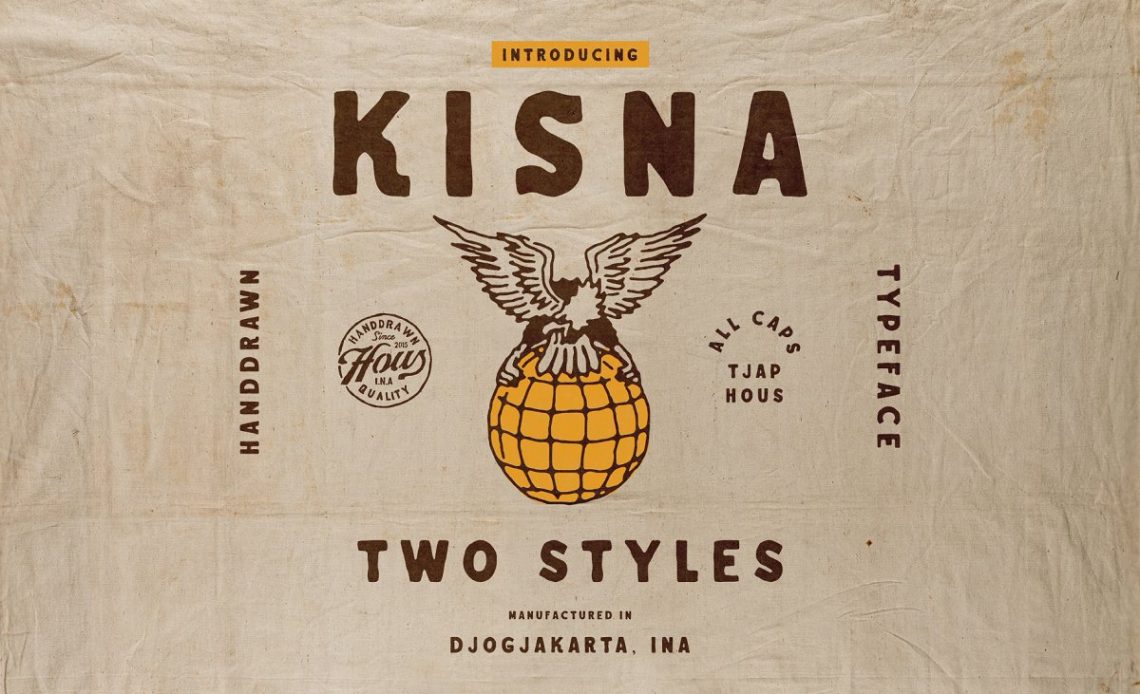
Introducing the Kisna Typeface, the Best Font for Vintage T Shirts! Created by Fahrenno Asnawan and inspired by the captivating graphics of the 1920s, this hand-drawn typeface is a must-have for designers and artists alike.
With two styles to choose from, regular and stamp, Kisna Typeface offers endless possibilities to elevate your designs. The regular style exudes elegance and sophistication, perfect for adding a touch of vintage charm to your projects. On the other hand, the stamp style brings a rustic and authentic feel, ideal for creating eye-catching designs that demand attention.
Whether you're a seasoned designer or just getting started, Kisna Typeface offers a world of creative possibilities. Its versatility makes it suitable for various projects, including vintage t-shirts, posters, logos, and more. Let your imagination run wild and bring your designs to life with this exceptional font.